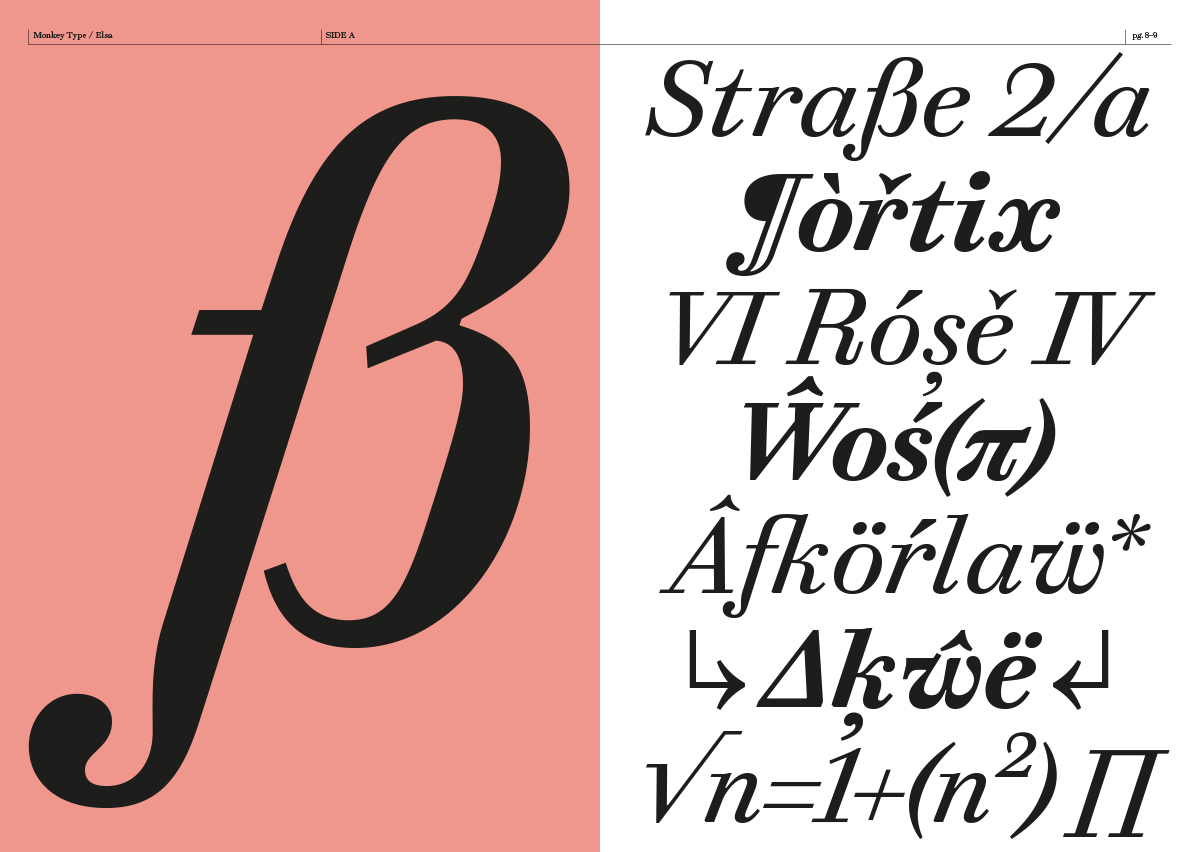
Ella spent the morning at the galleries. Clearly reminiscing about the paintings she saw, she draws inspiration from the classics such as Walbaum and Bodoni and reimagines them in the present day. Her sturdy serifs and add to her confident appearance, which is aching to explore the more decorative typesetting contexts. With her flamboyant italics, Ella is sure to stand out and attract the attention she deserves.